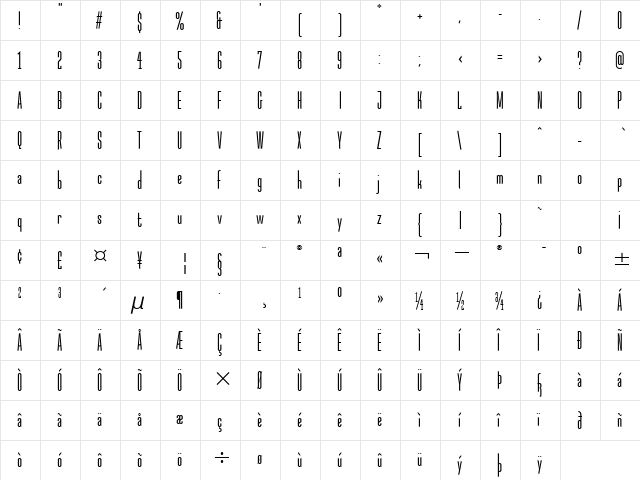
MalstockITC Roman Font Preview
MalstockITC Roman
Design Context for MalstockITC Typeface
MalstockITC offers clean, dependable letterforms without strong stylistic allegiance, making it a practical choice for designers who need flexibility.
Pro Tip: Use MalstockITC in both headline and body roles to test its range before committing to a single application.